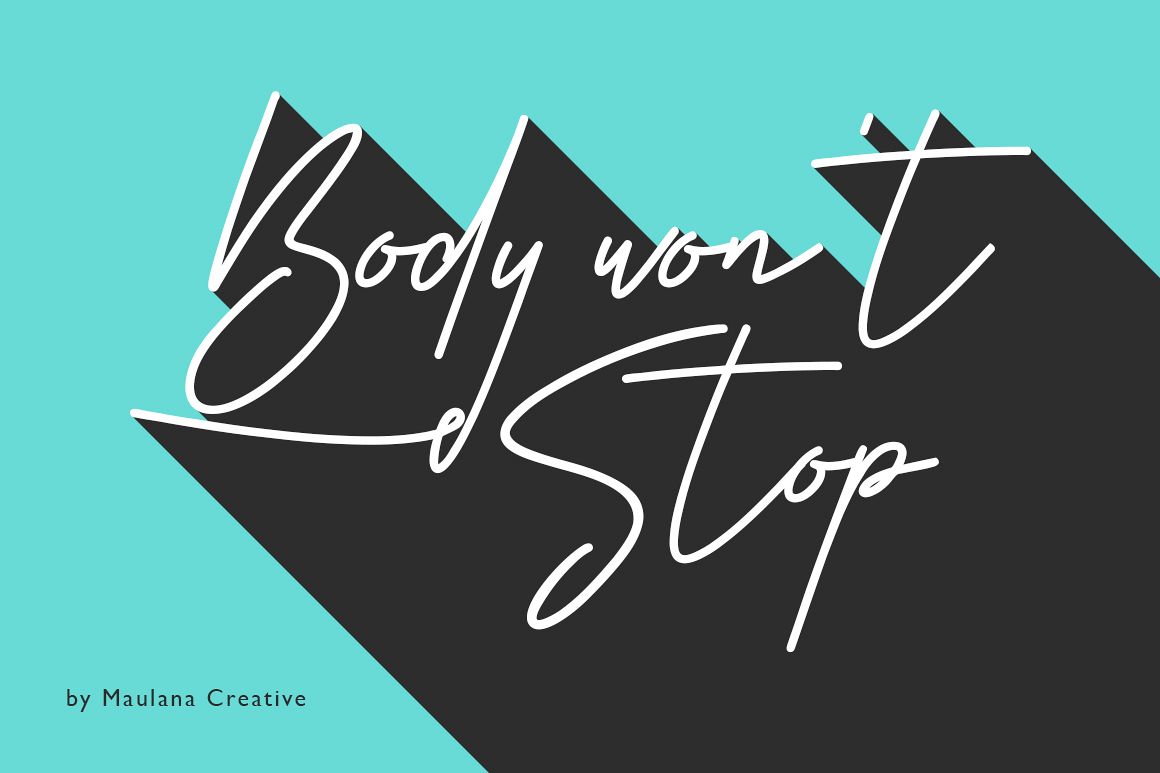
Give your designs an authentic handcrafted feel. "Body Won't Stop" is perfectly suited to signature, stationery, logo, typography quotes, magazine or book cover, website header, clothing, branding, packaging design and more. Included Stylistic, Swash and Ligature.Use the alternates in Adobe Illustrator and Adobe Photoshop, this is the quick tutorial: